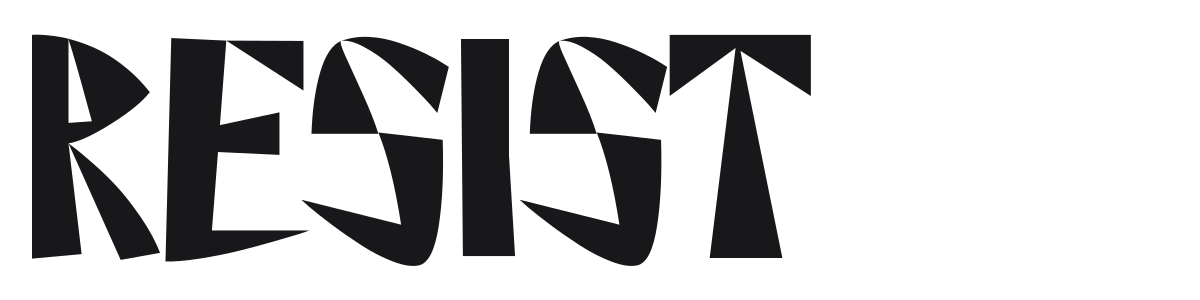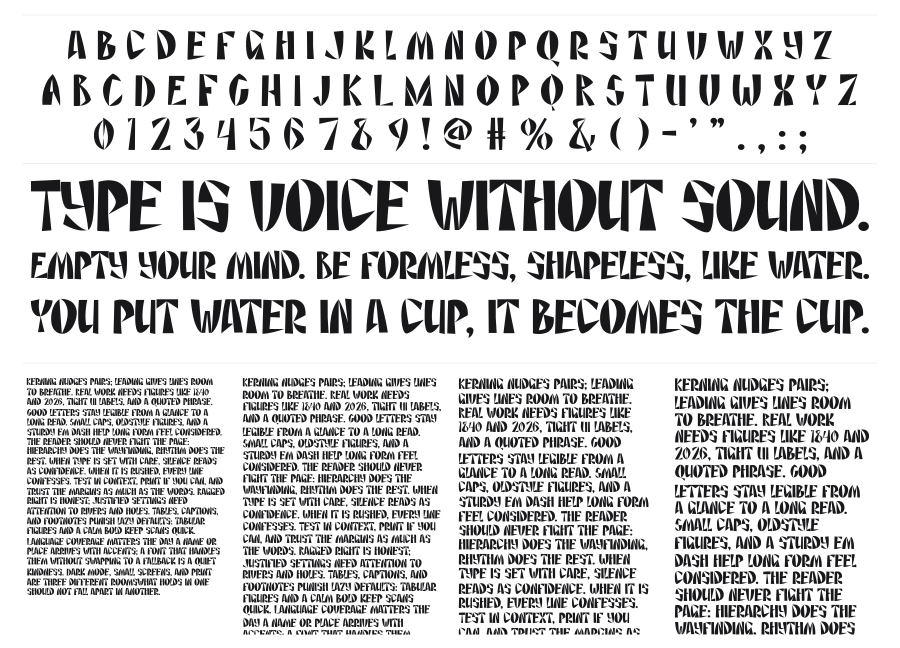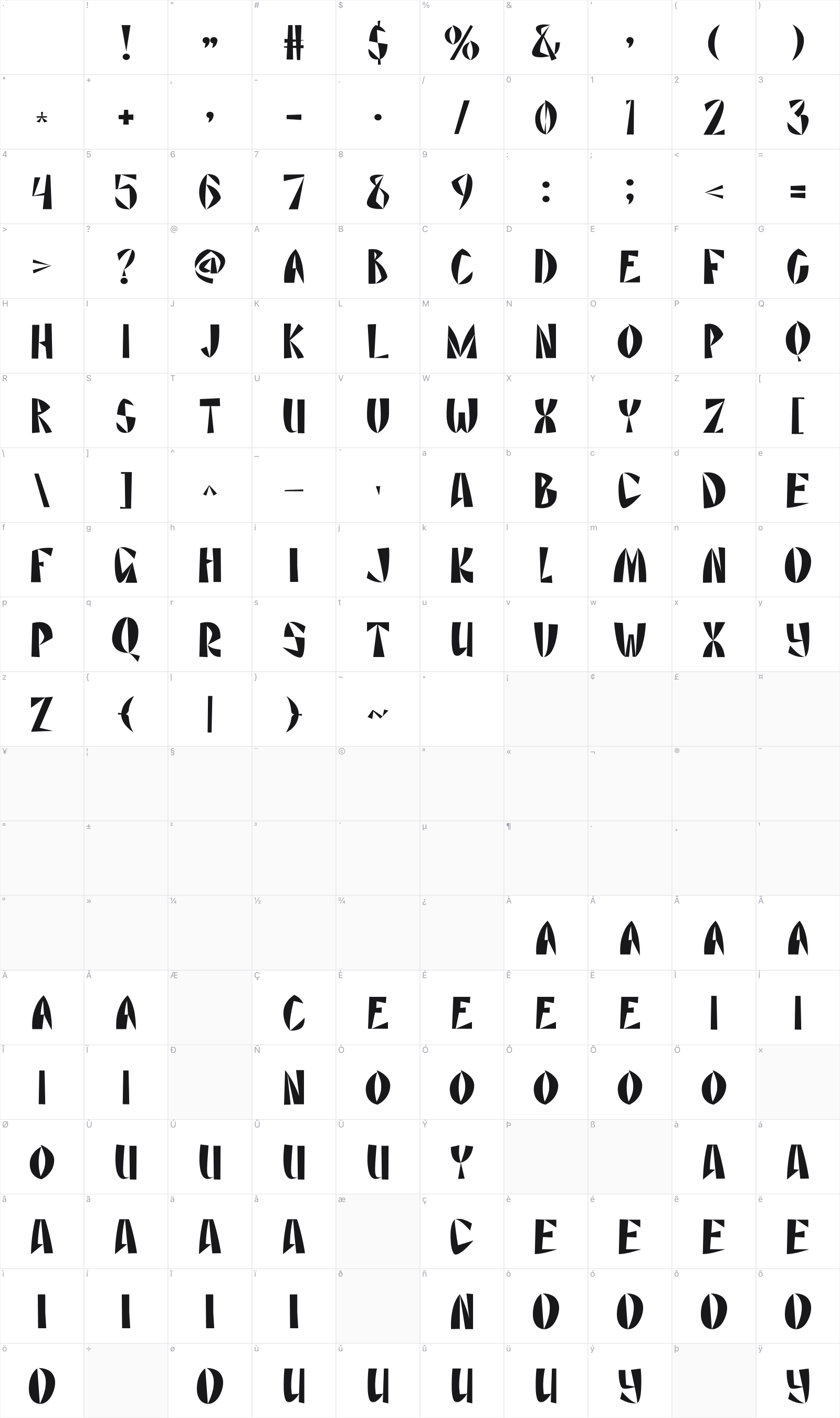
Resist
Resist is a heavy display face built around dramatic triangular cuts sliced through its bold strokes, giving each character a fractured, woodcut-like energy. The geometric voids create sharp internal contrast against the solid black mass of the letters, producing something between a protest poster and a contemporary street aesthetic. It hits hard at large sizes and carries a clear political charge.